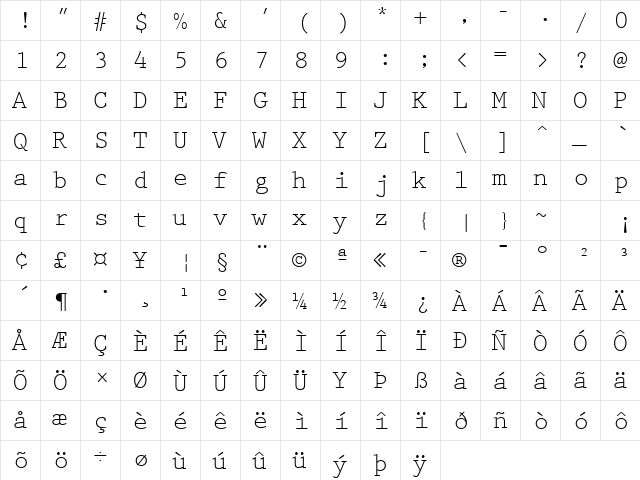
Prestige Regular Font Preview
Prestige Regular
Design Context for Prestige Typeface
Prestige takes a measured approach to typography — its balanced proportions and neutral character make it a reliable workhorse for both digital and print work.